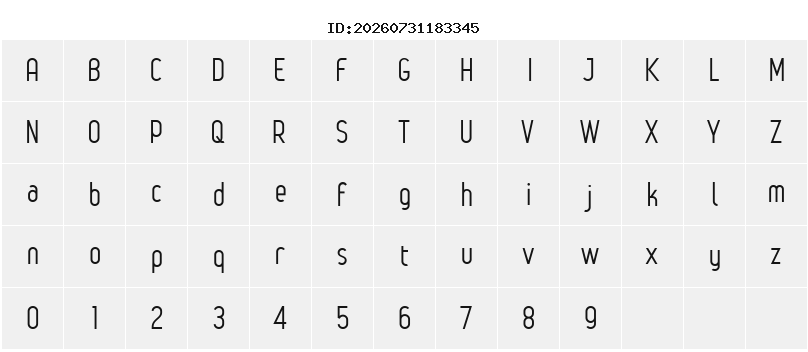
• Font Name: Leger
About Leger.ttf
Leger.ttf is a modern, elegant sans-serif font designed for ultimate readability and visual harmony. Perfect for branding, headlines, web design, and print materials.